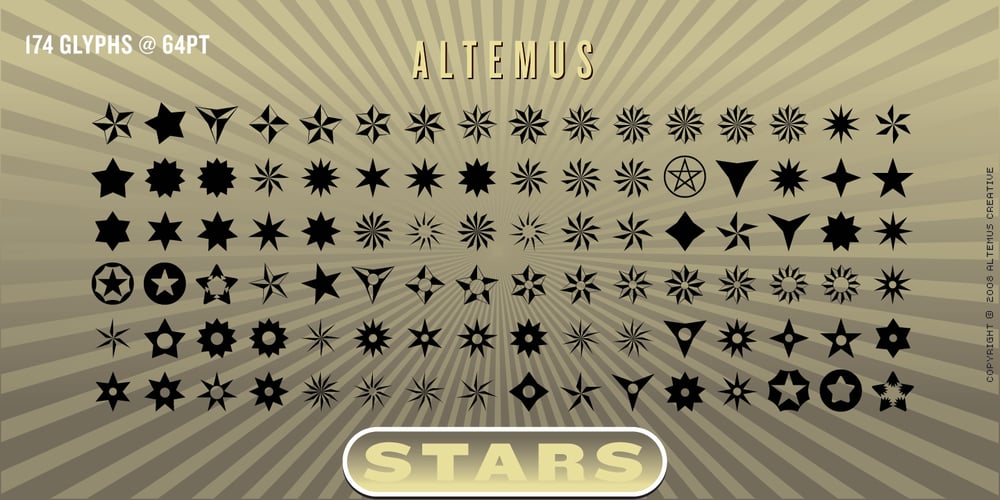
Altemus Stars
Altemus Stars font
Altemus Stars Font Family was designed by Robert Altemus and published by Altemus Creative. Altemus Stars contains 3 styles and family package options. Stars contains 174 characters; a variety of solid and dimensional star designs with from three to twelve points, pentagrams, sheriff stars, stars of david, outline stars, burst stars and airforce stars. Stars Two contains 174 characters; a variety of five pointed outline stars with centers, star designs composed from various geometric shapes with from three to eight points, jagged stars, quilt stars, outline stars, starfish, arrow stars, burst stars, drop shadow stars, ragged starbursts, double stars and air force stars. Stars Three is a collection of 174 star designs.